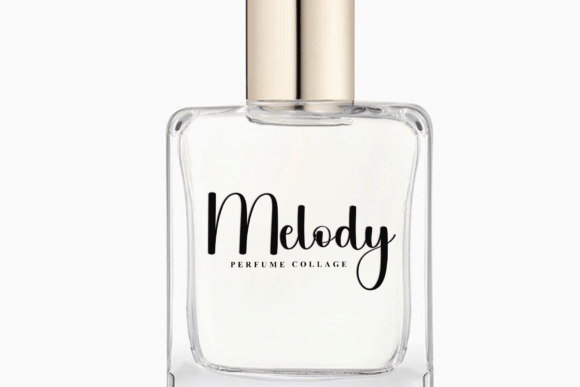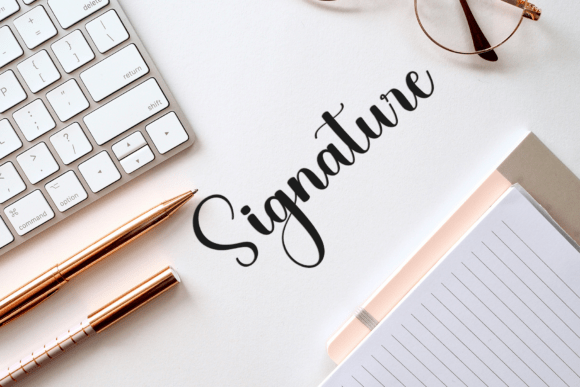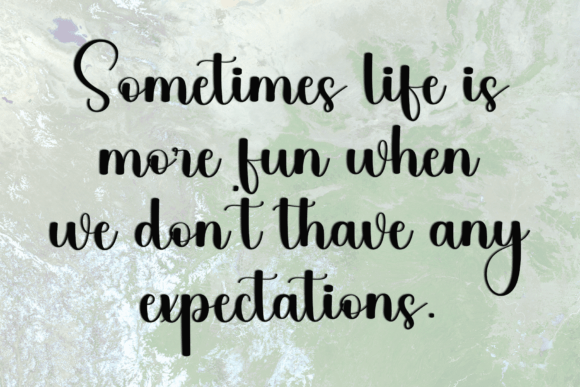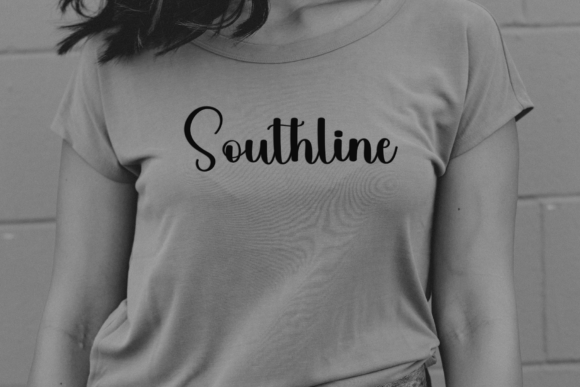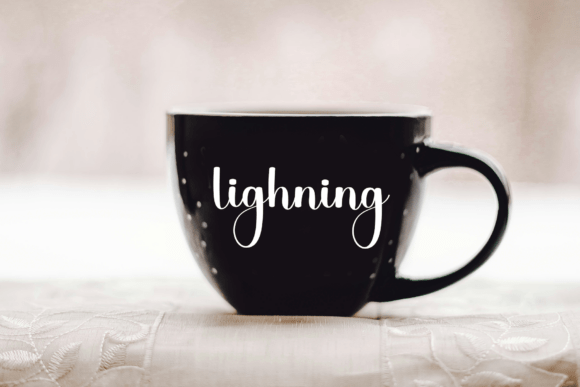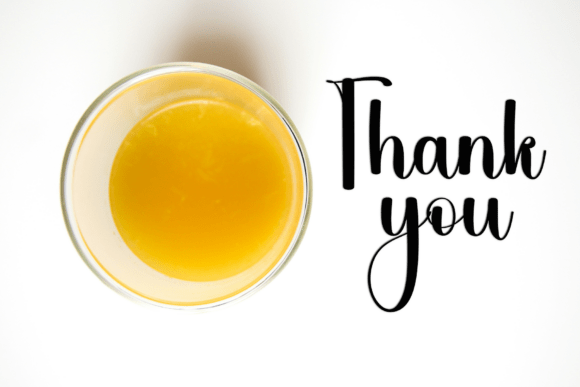
The Elusive Perfect Font: My Encounter with Alphabet Beauty
Ah, the eternal quest for the perfect font. I’ve lost count of how many projects I’ve worked on where the font was the make-or-break element. I recall a particularly stressful experience with a wedding invitation design project. The client wanted something elegant, yet modern; delicate, yet impactful. I scoured font libraries, tried out dozens of options, but nothing seemed quite right. That was until I stumbled upon Alphabet Beauty, a simple yet sophisticated handwritten font that instantly resonated with my design sensibilities.
An Honest Review of Alphabet Beauty
So, what makes Alphabet Beauty so special? Let’s dive into the good stuff and, of course, a few quirks I’ve noticed.
- ✨ Elegant and charming: Alphabet Beauty exudes a sense of sophistication that’s hard to find in handwritten fonts.
- ✅ Versatile: It’s perfect for a wide range of projects, from logos and branding materials to wedding invitations and social media quotes.
- 💫 Clean readability: Despite its elegant nature, Alphabet Beauty remains highly legible, even at smaller sizes.
- 🎨 Handcrafted feel: The font’s subtle imperfections give it a personal, artisanal touch that sets it apart from more uniform typefaces.
- ⚠️ PUA Encoding: While Alphabet Beauty is PUA encoded, which makes accessing glyphs and ligatures a breeze, it may require some extra steps to use in certain design platforms.
- 🤔 Overuse of Ligatures: With great power comes great responsibility. Be mindful of overusing ligatures, as they can make text harder to read if not used thoughtfully.
The Story Behind Alphabet Beauty
While the origins of Alphabet Beauty might be shrouded in mystery, it’s easy to imagine a designer inspired by the elegance of handwritten calligraphy and the modernity of digital typography. Perhaps they sought to create a font that would bring a touch of sophistication to everyday designs, making them stand out in a crowded digital landscape.
Q: What makes Alphabet Beauty stand out from other handwritten fonts?
A: Alphabet Beauty stands out due to its elegant and charming appearance, clean readability, and versatile nature, making it suitable for a wide range of design projects.
Q: Is Alphabet Beauty suitable for body text?
A: While Alphabet Beauty is primarily designed for display purposes, its clean readability makes it possible to use for body text in certain contexts, especially at larger sizes.
Q: Does Alphabet Beauty support multiple languages?
A: As a PUA encoded font, Alphabet Beauty offers a range of glyphs and ligatures, but its language support may vary. It’s best to check the specific character set and language support before use.